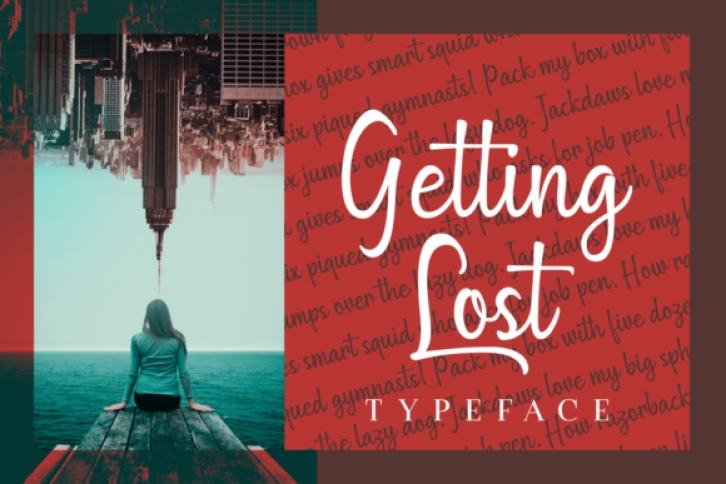
The Getting Lost is an unique script font. It has a great readability which makes it perfect every design size. It’s clean characters have a striking, yet elegant feel, and will add a luxurious vibe to your designs.